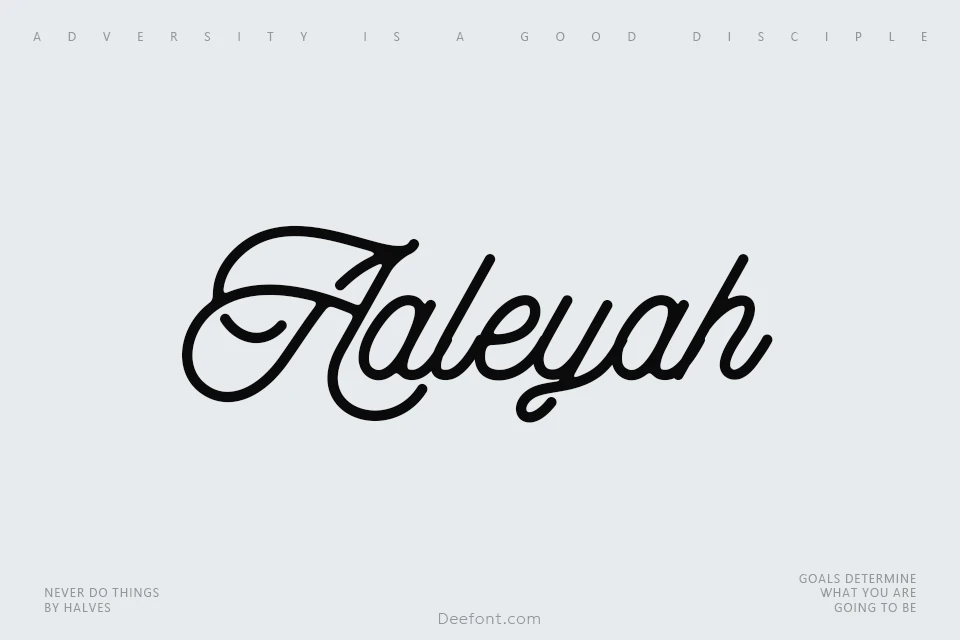
Aaleyah Font
Aaleyah Font is a magnificent curved display font family that brings vintage and mystique flavor to any design project. This elegant typeface features over 180 characters with multilingual support for 15 languages and comes in seven versatile styles including Light, Normal, and Thick variations, each with Rough and Stamp alternatives. The font's OpenType support allows for easy access to alternate characters through special combinations. Perfect for logo designs, headlines, music projects, social media posts, event posters, brand imagery, product packaging, quotes, and merchandise, Aaleyah offers a unique blend of modern sophistication and vintage charm that gives any project a competitive edge.